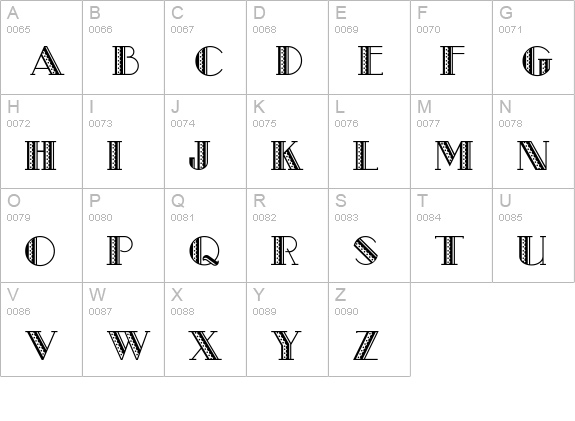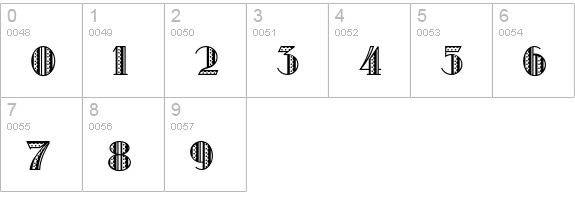
Metro-Retro Font Details
Metro-Retro font is a modern and stylish typeface that effortlessly combines sleek lines with a retro flair. Its clean and elegant design makes it perfect for a wide range of projects, from branding to editorial design. The Metro-Retro font is versatile and eye-catching, adding a touch of sophistication to any text. Best of all, Metro-Retro font is completely free to download at FontsMarket.com. This means you can easily incorporate this trendy font into your designs without breaking the bank. Whether you're looking to add a touch of nostalgia to your work or simply want a fresh and contemporary look, Metro-Retro font is the perfect choice. Download it today and elevate your design projects to the next level!